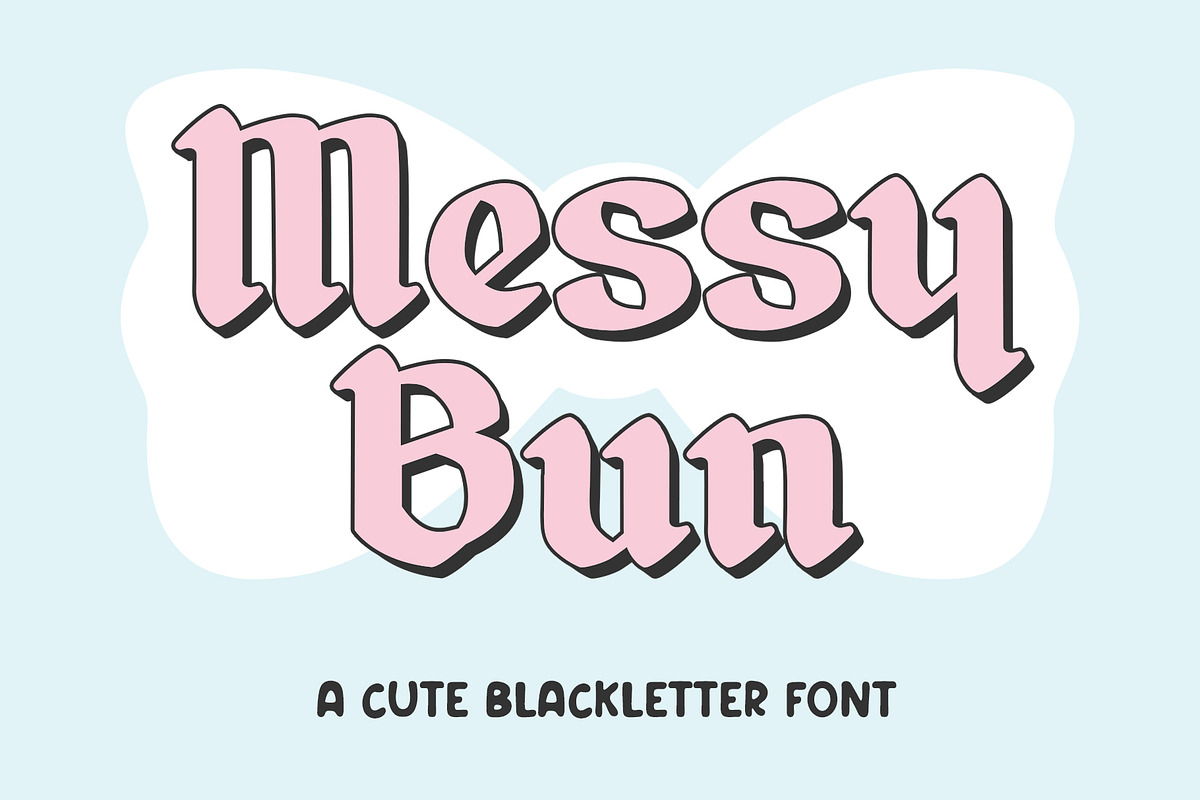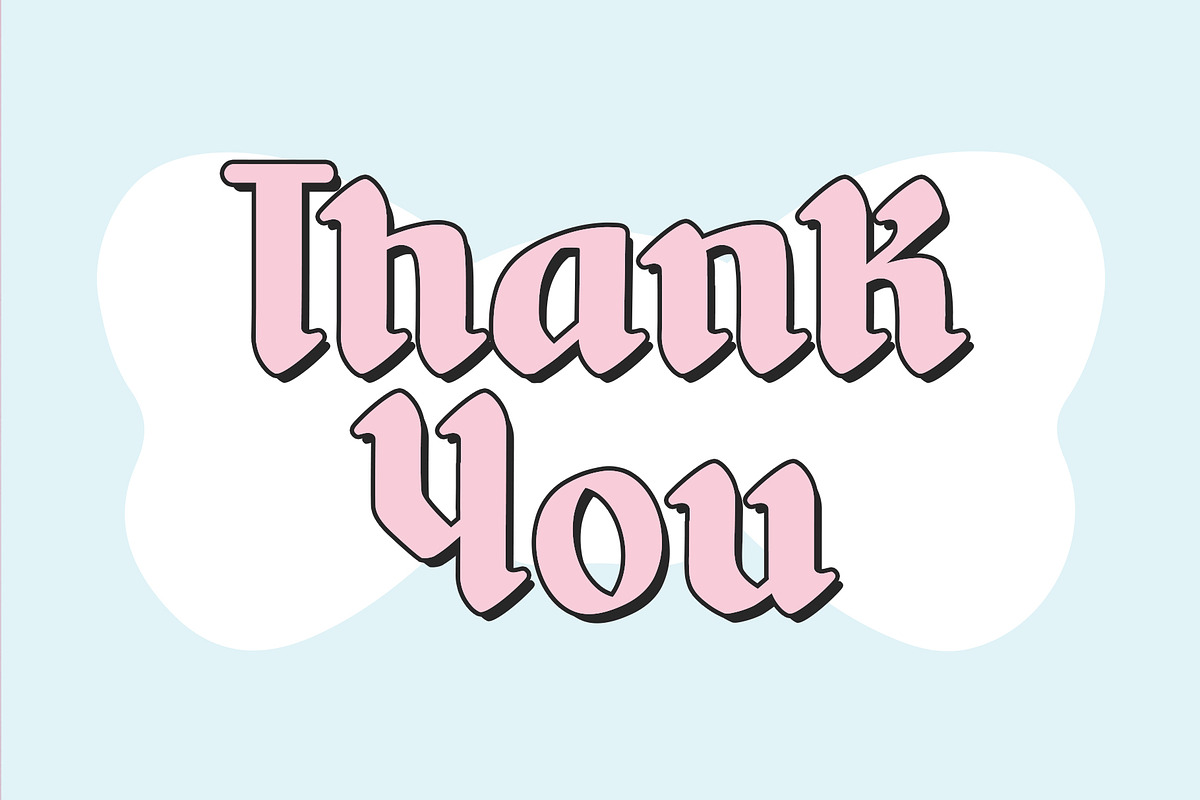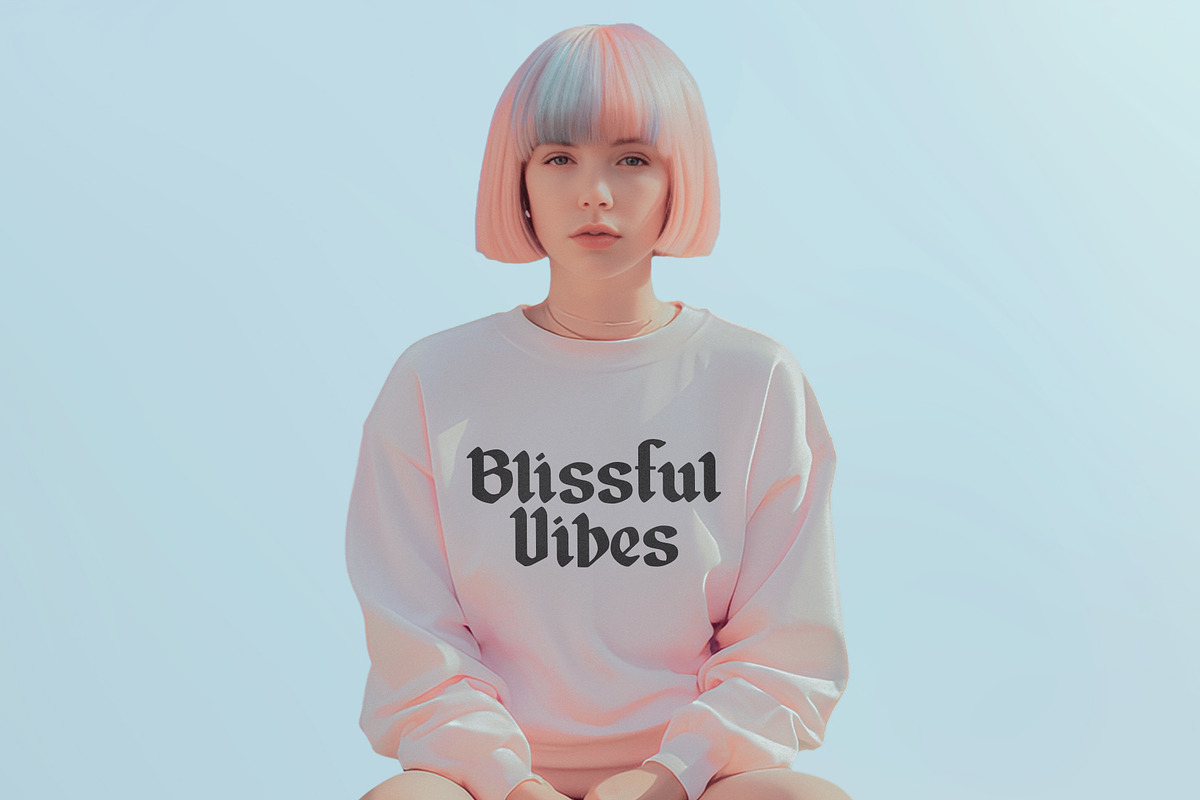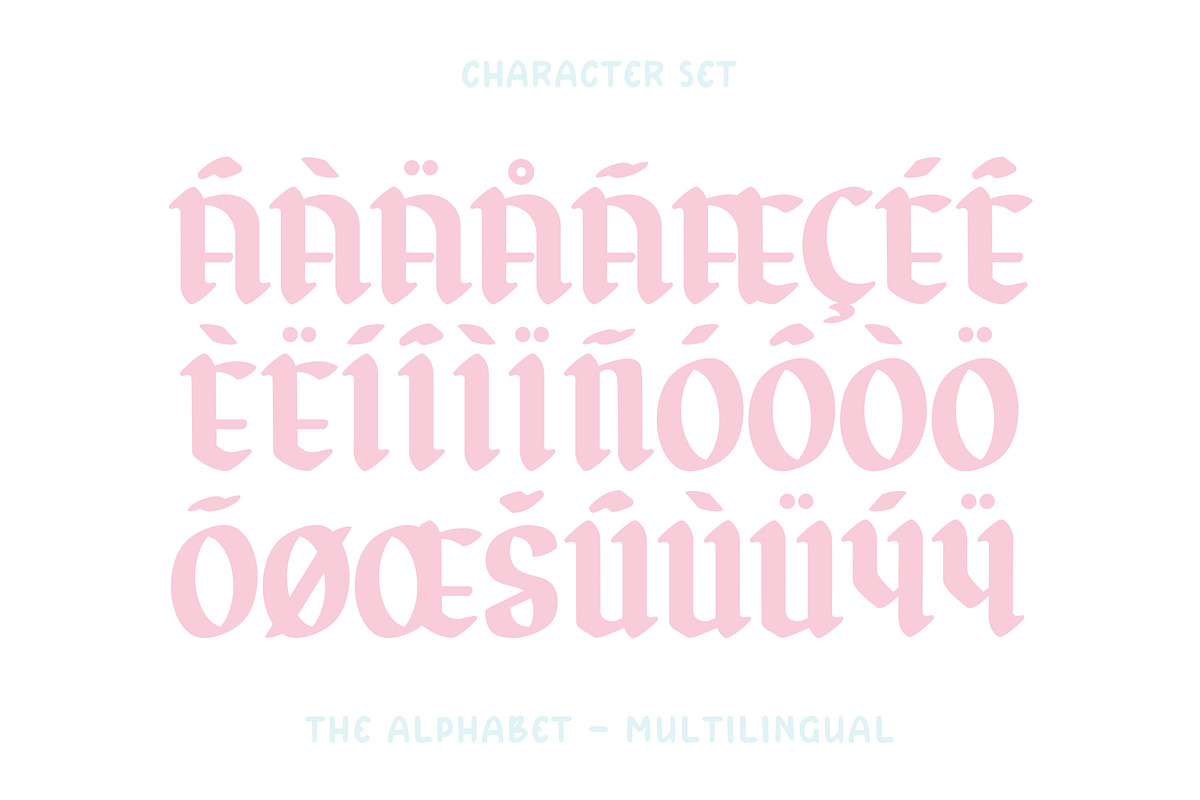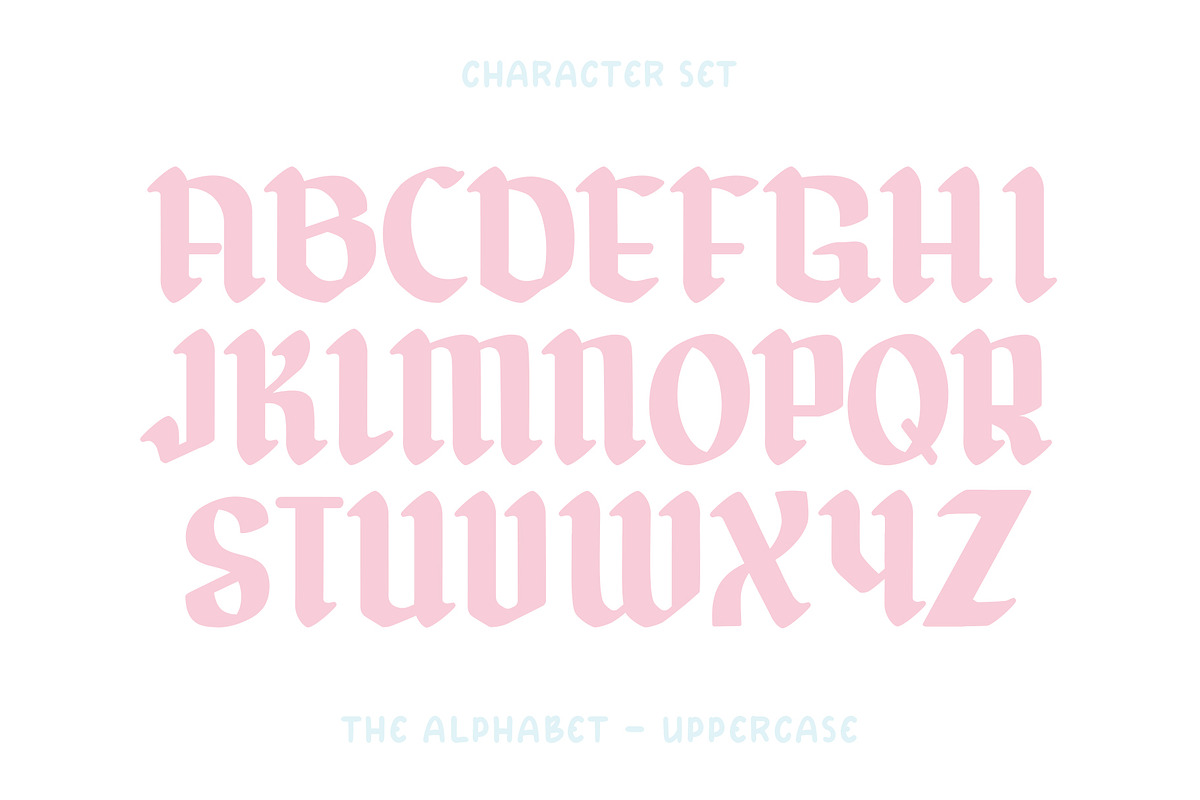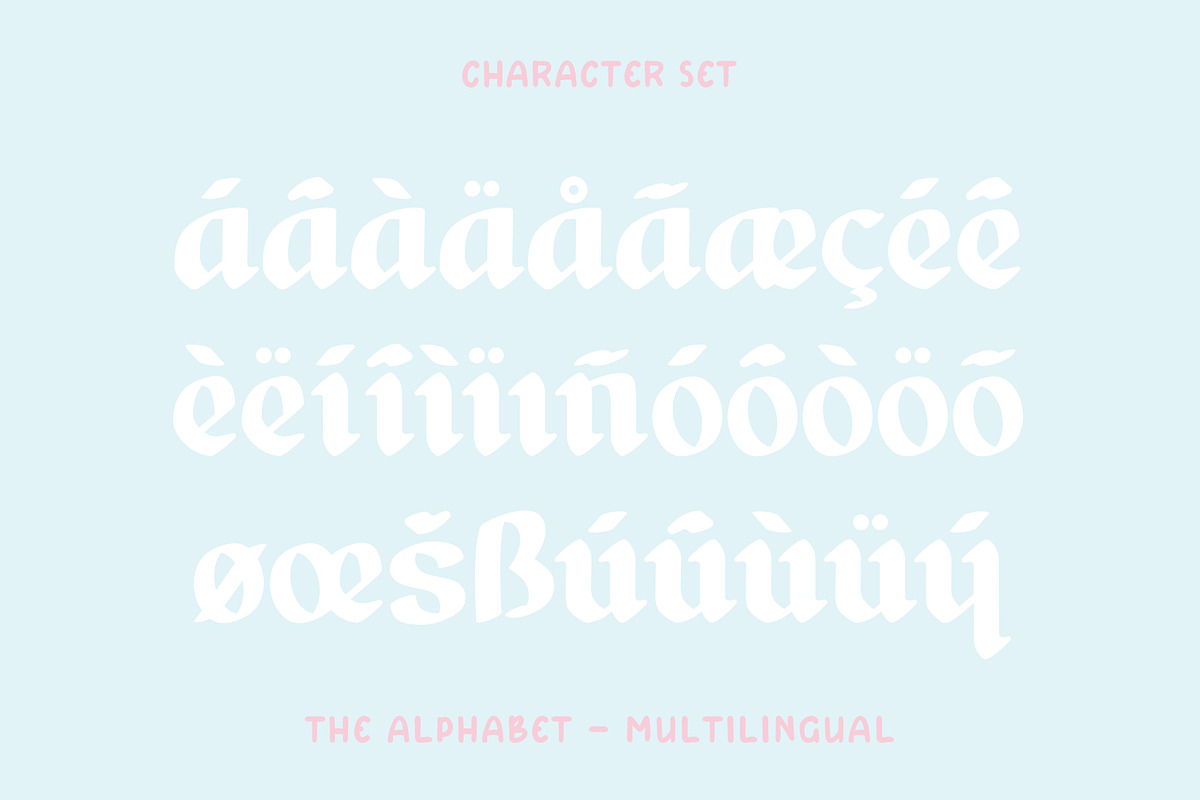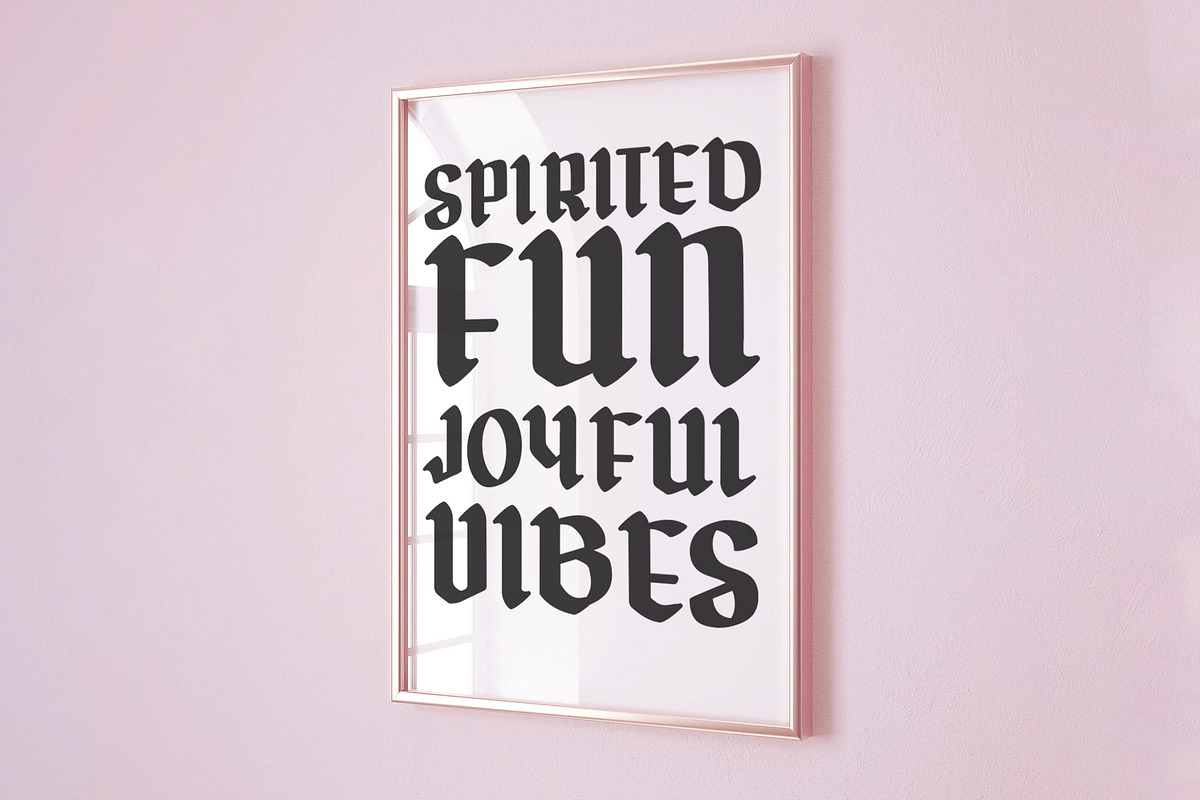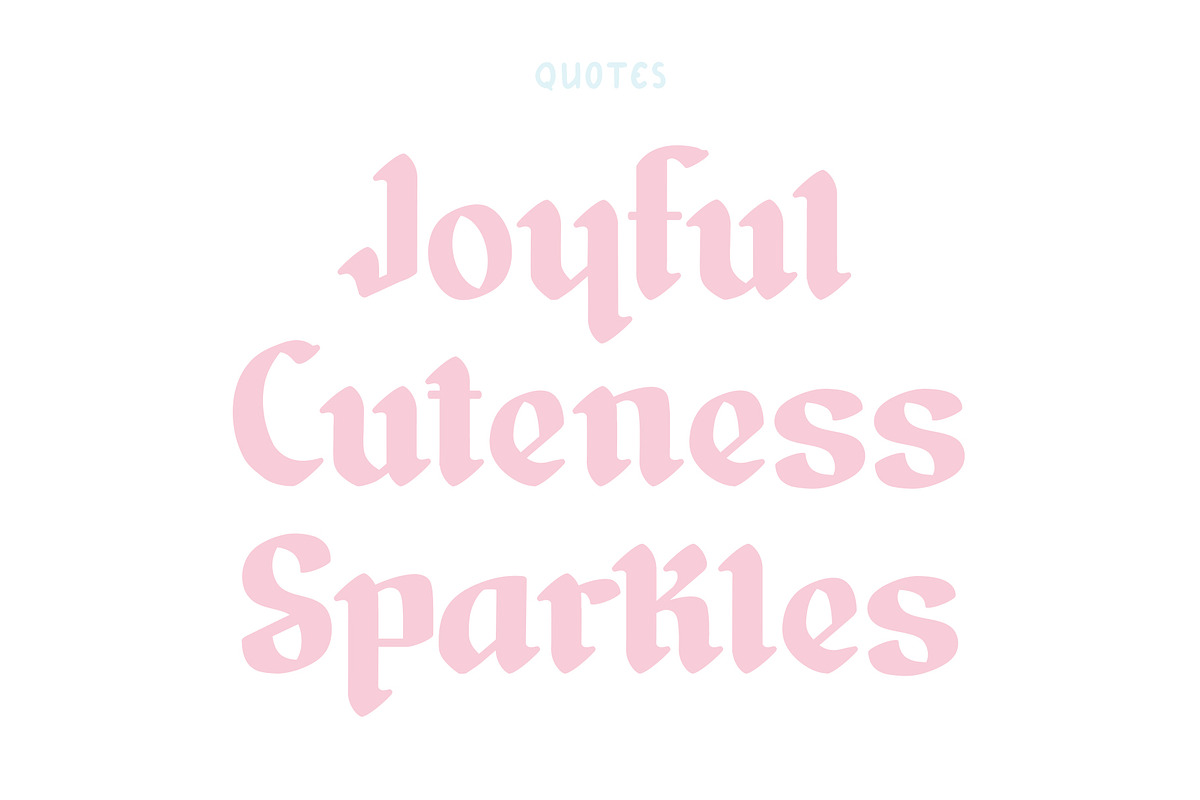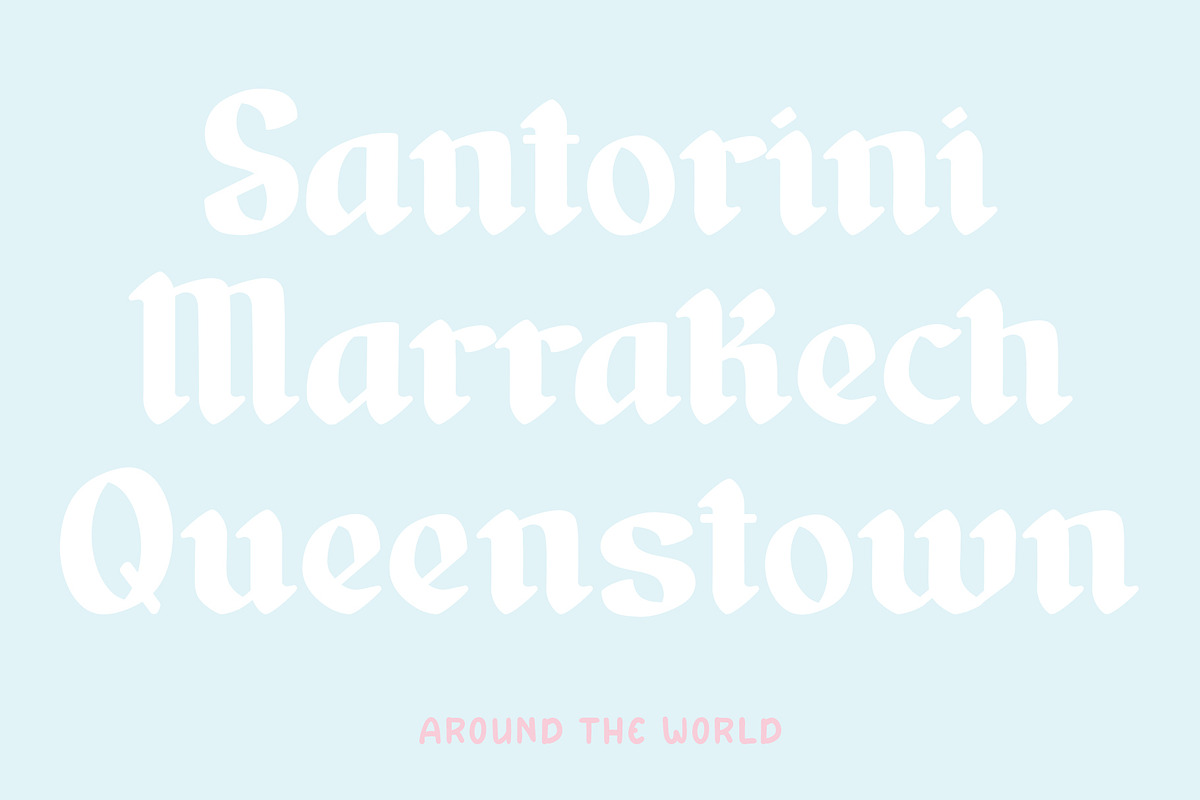
Messy Bun - Blackletter Font
Messy Bun is a captivating Blackletter font that exudes both elegance and rebellion. Its intricate strokes and bold lines are reminiscent of medieval calligraphy, yet it carries a modern twist that adds a touch of spontaneity and edge. This typeface available in SVG format, compatible with advanced tools such as Cricut and Glowforge, and for use in Procreate. The fusion of traditional craftsmanship with contemporary flair makes Messy Bun a versatile choice for a wide range of projects, from vintage-inspired designs to urban streetwear branding.